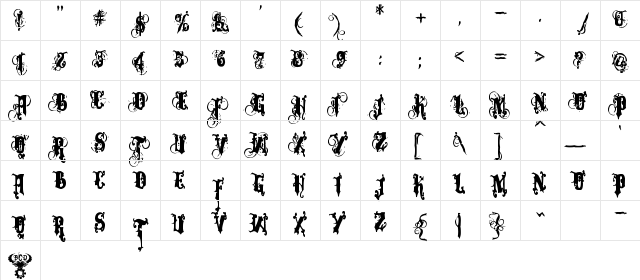
Dominatrix Regular
| Designer | BoltCutterDesign |
Design Context for Dominatrix Typeface
Dominatrix is a composed and adaptable typeface that performs quietly and consistently across a wide range of design contexts.